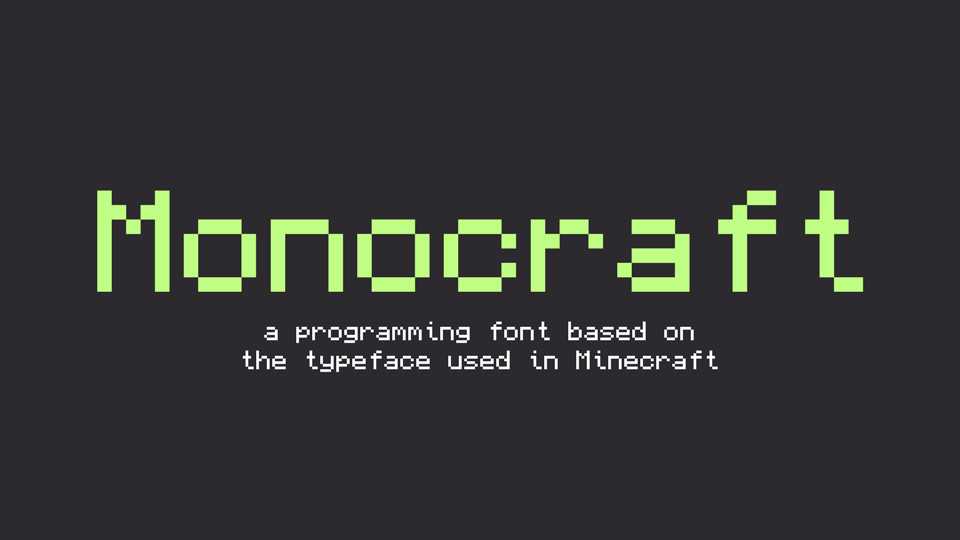
Download Monocraft font, a programming typeface based on the type used in Minecraft. The characters in Monocraft font were based around the typeface used in the Minecraft UI, with a select few glyphs updated for better readability and spacing
Designer: Idrees Hassan